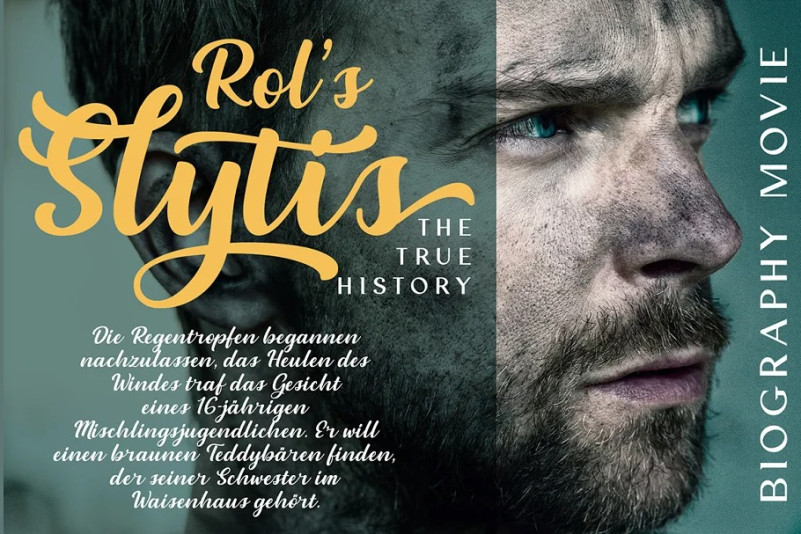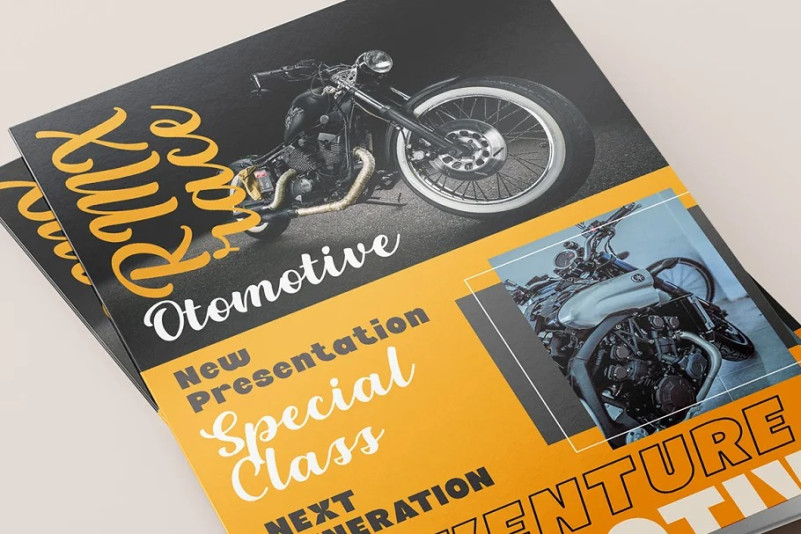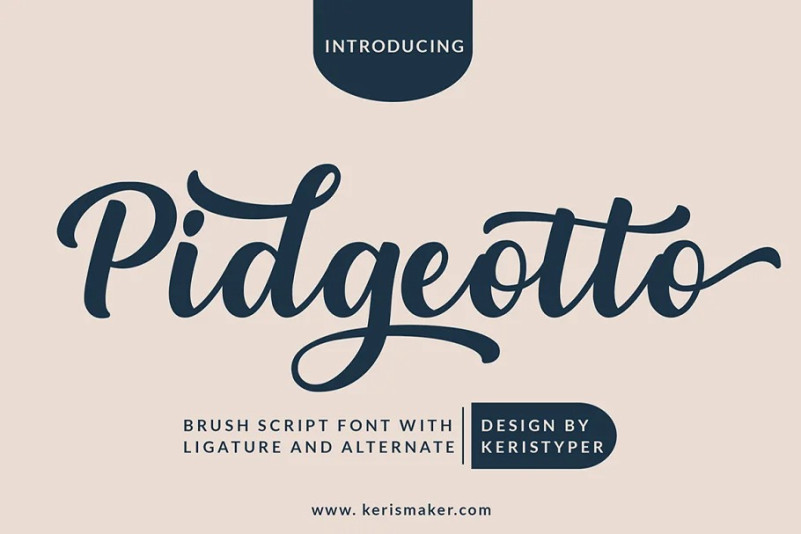
Pidgeotto Font
Pidgeotto Script Font is a script font with a nice, smooth flow. The basic letters are simple but modified with stylistics to make it look more attractive, there are many alternatives to make it happen. Great for logos, titles, t-shirts, packages, and anywhere else you need this kind of lined, legible script font.